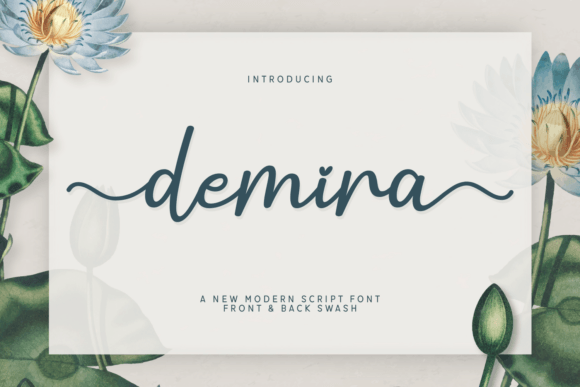
Introducing Demira Font: The Epitome of Elegance and Sophistication
In the realm of typography, few fonts have managed to capture the essence of elegance and sophistication as effectively as Demira Font. This sleek and modern script font has been turning heads with its elegant front and back swashes, bringing a sense of fluidity and charm to any design it adorns. Whether you’re working on wedding invitations, logos, branding, product packaging, or social media designs, Demira Font is the perfect choice for those seeking to add a touch of refinement and romance to their projects.
The Design Philosophy Behind Demira Font
Demira Font is the brainchild of designers who sought to create a typeface that embodies the perfect blend of modernity and classic charm. Its clean, sophisticated style is characterized by soft, graceful curves and heart-inspired details, which collectively contribute to a warm and inviting feel. This thoughtful design approach makes Demira Font incredibly versatile, capable of elevating a wide range of design projects with its unique blend of elegance and playfulness.
Key Features of Demira Font
- Elegant Front and Back Swashes: One of the standout features of Demira Font is its elegant front and back swashes. These decorative elements add a dynamic and fluid quality to the text, making it perfect for designs that require a touch of sophistication.
- Clean and Sophisticated Style: The clean lines and sophisticated style of Demira Font make it an excellent choice for a variety of applications, from wedding invitations to corporate branding.
- Soft, Graceful Curves: The font’s soft, graceful curves contribute to its warm and inviting feel, making it ideal for designs that aim to convey a sense of romance and elegance.
- Heart-Inspired Details: The heart-inspired details in Demira Font add a whimsical touch, making it perfect for designs that require a personal and romantic feel.
Use Cases for Demira Font
Demira Font’s versatility is one of its most compelling attributes. Here are some of the many use cases where Demira Font truly shines:
Wedding Invitations
Wedding planners and designers often seek fonts that can convey the romance and elegance of the occasion. Demira Font, with its elegant swashes and heart-inspired details, is perfectly suited for wedding invitations, setting the tone for a memorable and beautiful event.
Logos and Branding
For businesses looking to establish a sophisticated and elegant brand identity, Demira Font can be a valuable asset. Its unique charm and modern appeal make it an excellent choice for logos, business cards, and other branding materials.
Product Packaging
In the competitive world of product packaging, standing out on store shelves is crucial. Demira Font can help elevate product labels and packaging designs, adding a touch of elegance and sophistication that can attract potential customers.
Social Media Designs
Social media is a crowded space, and designers need fonts that can help their content stand out. Demira Font’s modern and elegant design makes it perfect for social media graphics, helping to capture the attention of audiences and convey messages with style.
Why Choose Demira Font?
With so many fonts available, why should designers and businesses choose Demira Font for their projects? Here are a few compelling reasons:
- Unique and Memorable: Demira Font offers a unique blend of modernity and elegance, making it a memorable choice for any design project.
- Versatile: Its versatility means it can be used across a wide range of applications, from wedding invitations to corporate branding.
- Elegant and Sophisticated: Demira Font brings an air of elegance and sophistication to any design, helping to elevate the overall aesthetic and impact.
Demira Font is more than just a typeface; it’s a design statement. Its sleek and modern script, complete with elegant front and back swashes, brings a sense of fluidity and charm to any project. With its clean, sophisticated style, soft curves, and heart-inspired details, Demira Font is the perfect choice for designers and businesses looking to add a touch of elegance and romance to their work. Whether you’re designing wedding invitations, logos, product packaging, or social media content, Demira Font is sure to make a lasting impression.